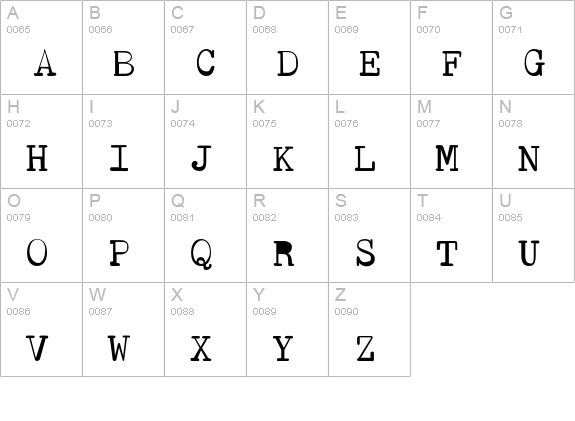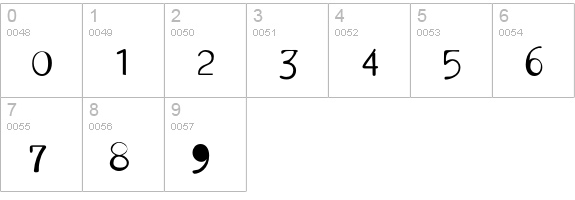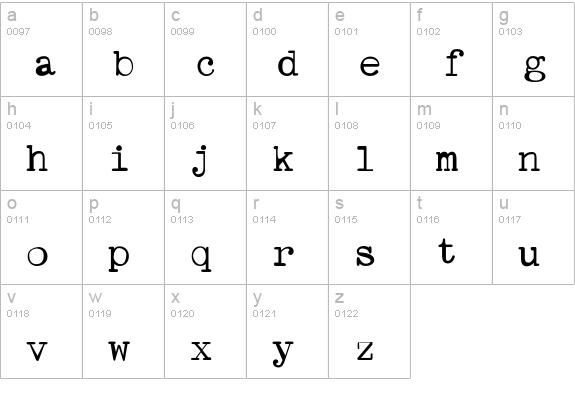
STAPortableReg Font Details
STAPortableReg is a modern and versatile font that is perfect for various design projects. With its clean and sleek lines, this font adds a touch of sophistication to any text. Whether you are creating a logo, designing a website, or crafting marketing materials, STAPortableReg is a reliable choice. One of the best things about STAPortableReg is that it is completely free to download. You can easily access this font at FontsMarket.com, a reputable website that offers a wide range of high-quality fonts. With just a few clicks, you can have this amazing font at your fingertips, ready to elevate your design projects. Not only is STAPortableReg free, but it also comes with a wide range of characters and symbols, making it suitable for multiple languages and design styles. Its versatility ensures that you can use it for both professional and personal projects, adding a touch of elegance and uniqueness to your work. STAPortableReg is designed with legibility and readability in mind, ensuring that your text is easily understandable across different mediums. Its timeless design and balanced proportions make it a timeless choice that will never go out of style. Whether you are creating printed materials or digital designs, this font will always make your text pop. In conclusion, STAPortableReg is a free font that combines modernity with versatility, making it a fantastic choice for anyone looking to add a touch of elegance to their design projects. Download it today at FontsMarket.com and see how it can enhance your work.